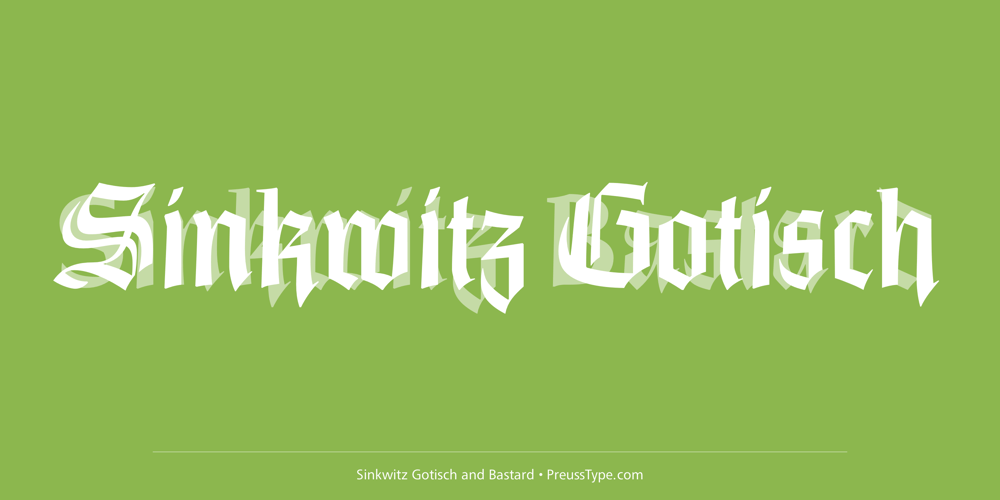
Sinkwitz Gotisch
Sinkwitz Gotisch Font Family was designed by Ingo Preuss, Paul Sinkwitz and published by preussTYPE. Sinkwitz Gotisch contains 1 styles and family package options. Sinkwitz Gotisch is a new release of the font of the same name originally designed by Paul Sinkwitz in 1942. The Sinkwitz Gotisch was 1942 by Schriftguss AG Dresden font cast first cast and later supplied by the East German firm VEB Typoart. Paul Sinkwitz (1899-1981) has created them. This font displays not the characteristics of a chunky Gothic, which have influenced the image of national socialism. Paul Sinkwitz was a painter, graphic artist, wood engraver, was interested in religious topics, which he had presented in numerous graphics. But also his interpretation of his Gothic font is modern, without having the font this is ugly. In addition to the GOTISCH he created Roman Uppercase letters, which perfectly harmonize with the lowercase letters. This extra font is called BASTARD. The digital version of Sinkwitz is a beneficial addition to a Gothic with calligraphic character and should be in any historically interested graphic design.